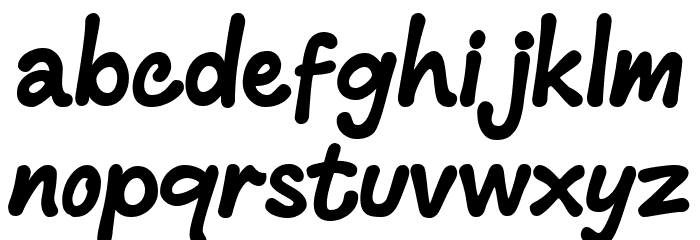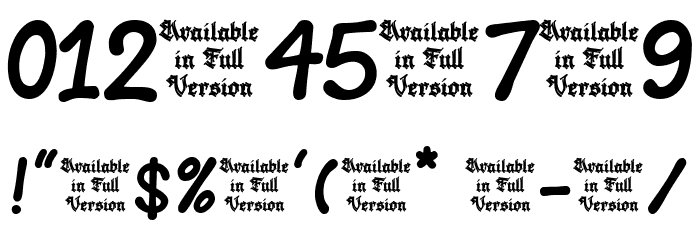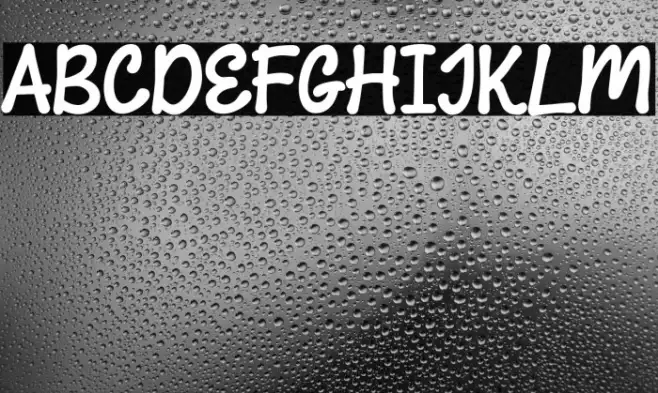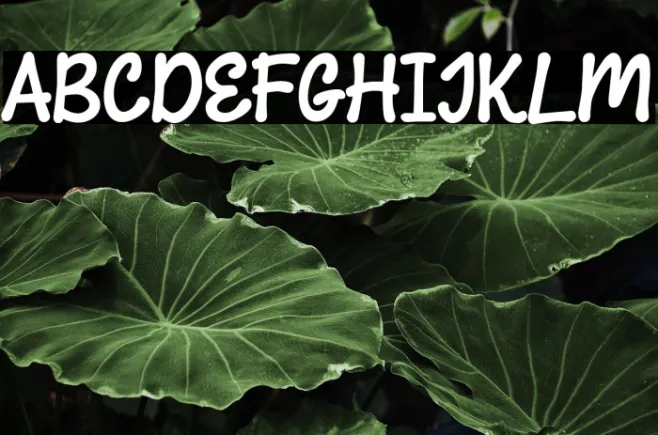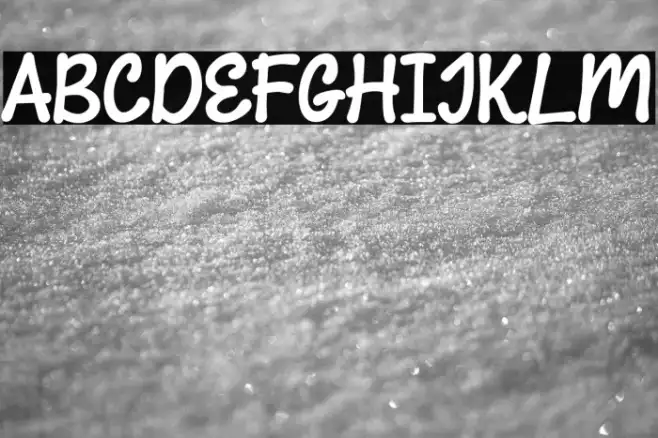
Balune Font
This font features a playful and bold script style with rounded edges and a handwritten feel. The uppercase letters are slightly larger and more pronounced, while the lowercase letters maintain a consistent flow and balance. The numbers are bold and clear, making them easily readable. The special characters complement the overall style with a similar playful touch. This font exudes a casual and friendly vibe, making it suitable for projects that require a personal and approachable look.
A playful and bold script font with a handwritten feel.
- Font: Balune
- Proposed Projects: Ideal for greeting cards, playful branding, children's books, and casual invitations.
- Category: Script
- Overall Style: Casual
- Use Case: Logos, Headlines, Invitations